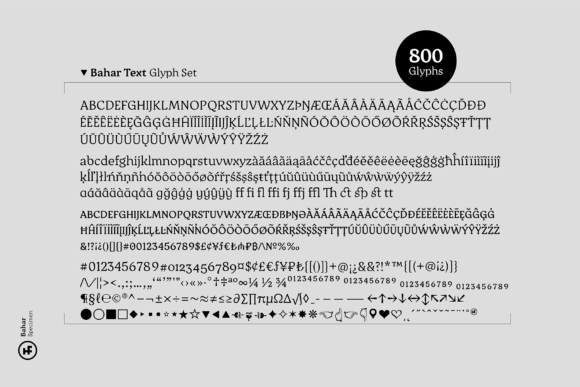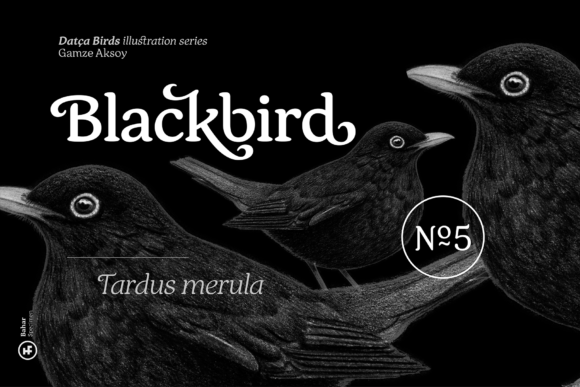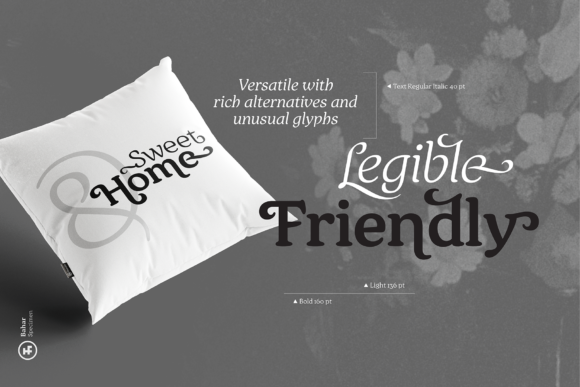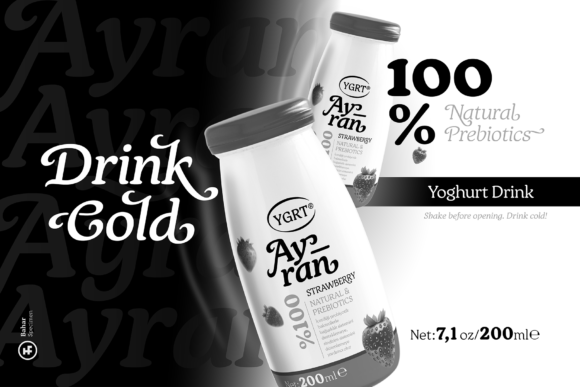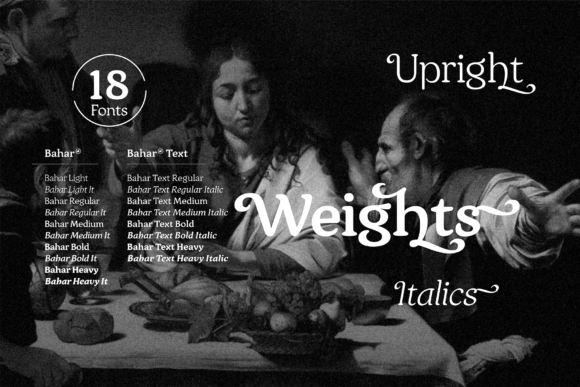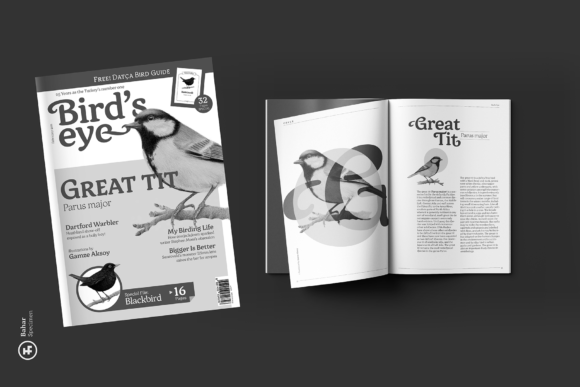
Bahar Text Font: Elevate Your Designs with a Bold and Cool Stylish Font
In the world of design, fonts play a crucial role in conveying the message and tone of a project. Whether you’re a digital designer, crafter, or simply someone who loves making greeting cards, having the right font can make all the difference. That’s where Bahar Text Font comes in – a bold, cool styled display font that’s perfect for adding a touch of trendiness to your designs.
What is Bahar Text Font?
Bahar Text Font is a stunning display font that’s designed to make a statement. Its bold and cool style makes it perfect for a wide range of design projects, from digital designs and presentations to crafting and greeting cards. The font features a unique blend of modern and edgy elements, giving it a trendy vibe that’s sure to grab attention.
Key Features of Bahar Text Font
- Bold and Cool Style: Bahar Text Font boasts a bold and cool style that’s perfect for making a statement in your designs.
- Display Font: This font is specifically designed as a display font, making it ideal for headlines, titles, and other prominent text elements.
- Trendy and Modern: The font features a trendy and modern aesthetic that’s perfect for designers and crafters who want to add a touch of style to their projects.
- Versatile: Whether you’re working on digital designs, presentations, or crafting projects, Bahar Text Font is versatile enough to fit in seamlessly.
Bahar Text Font is an excellent choice for designers and crafters who want to elevate their projects with a bold and cool font. Here are some ways you can use this font:
- Digital Designing: Use Bahar Text Font to add a touch of trendiness to your digital designs, such as brochures, posters, and social media graphics.
- Crafting: This font is perfect for crafters who want to add a personal touch to their projects, such as handmade cards, scrapbooking, and DIY crafts.
- Presentations: Make your presentations stand out with Bahar Text Font, perfect for titles, headings, and other prominent text elements.
- Greeting Cards Making: Create stunning greeting cards with Bahar Text Font, adding a touch of elegance and sophistication to your designs.
Why Choose Bahar Text Font?
With so many fonts available, why choose Bahar Text Font? Here are some reasons why this font stands out:
- Unique Style: Bahar Text Font features a unique blend of modern and edgy elements, making it a standout font in any design.
- Easy to Read: Despite its bold style, Bahar Text Font is easy to read, making it perfect for use in a variety of design projects.
- High-Quality: This font is designed to high-quality standards, ensuring that it looks great in any design.
In conclusion, Bahar Text Font is an excellent choice for designers and crafters who want to add a bold and cool touch to their projects. With its trendy and modern aesthetic, versatility, and high-quality design, this font is perfect for a wide range of design projects. Whether you’re working on digital designs, presentations, crafting, or greeting cards making, Bahar Text Font is sure to elevate your designs to the next level.